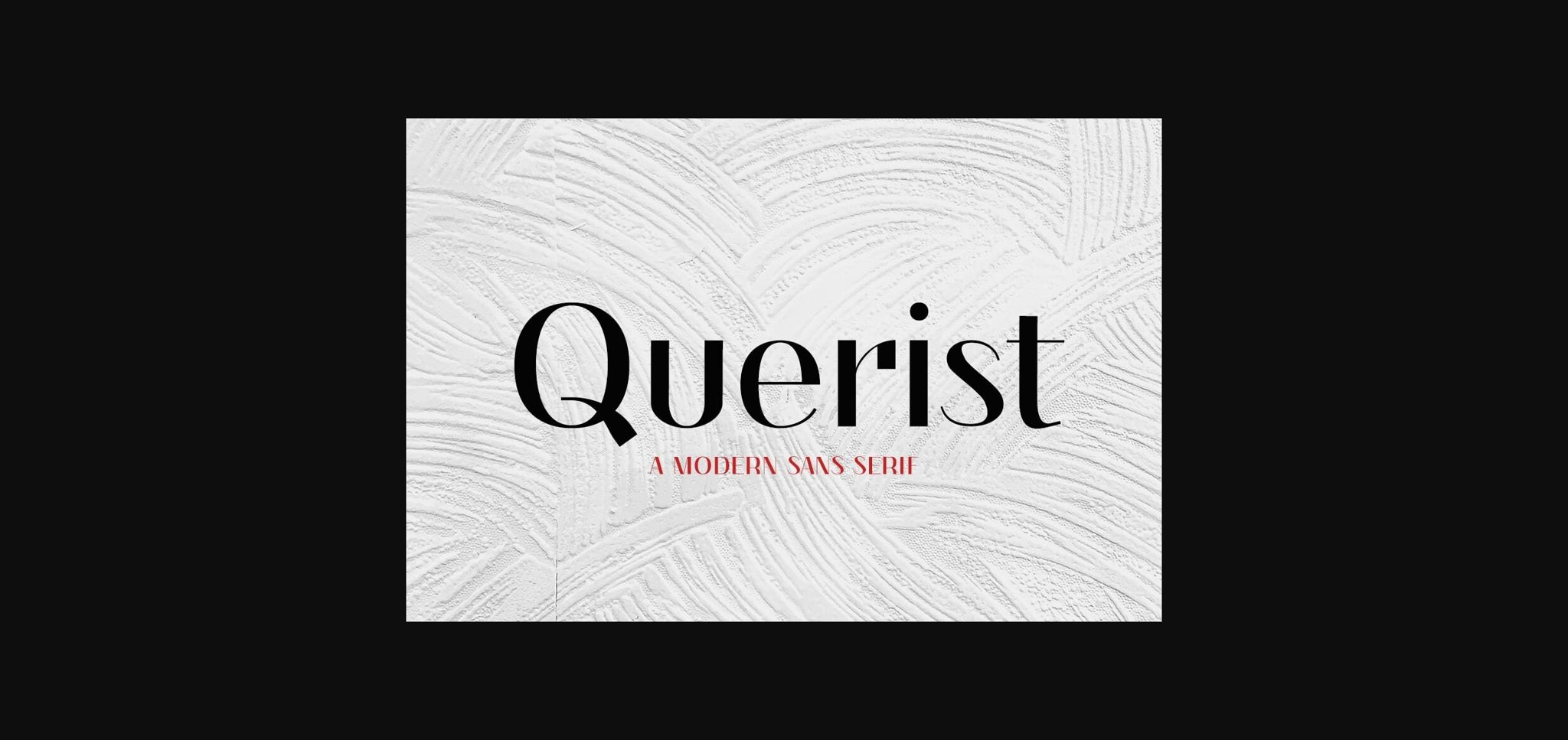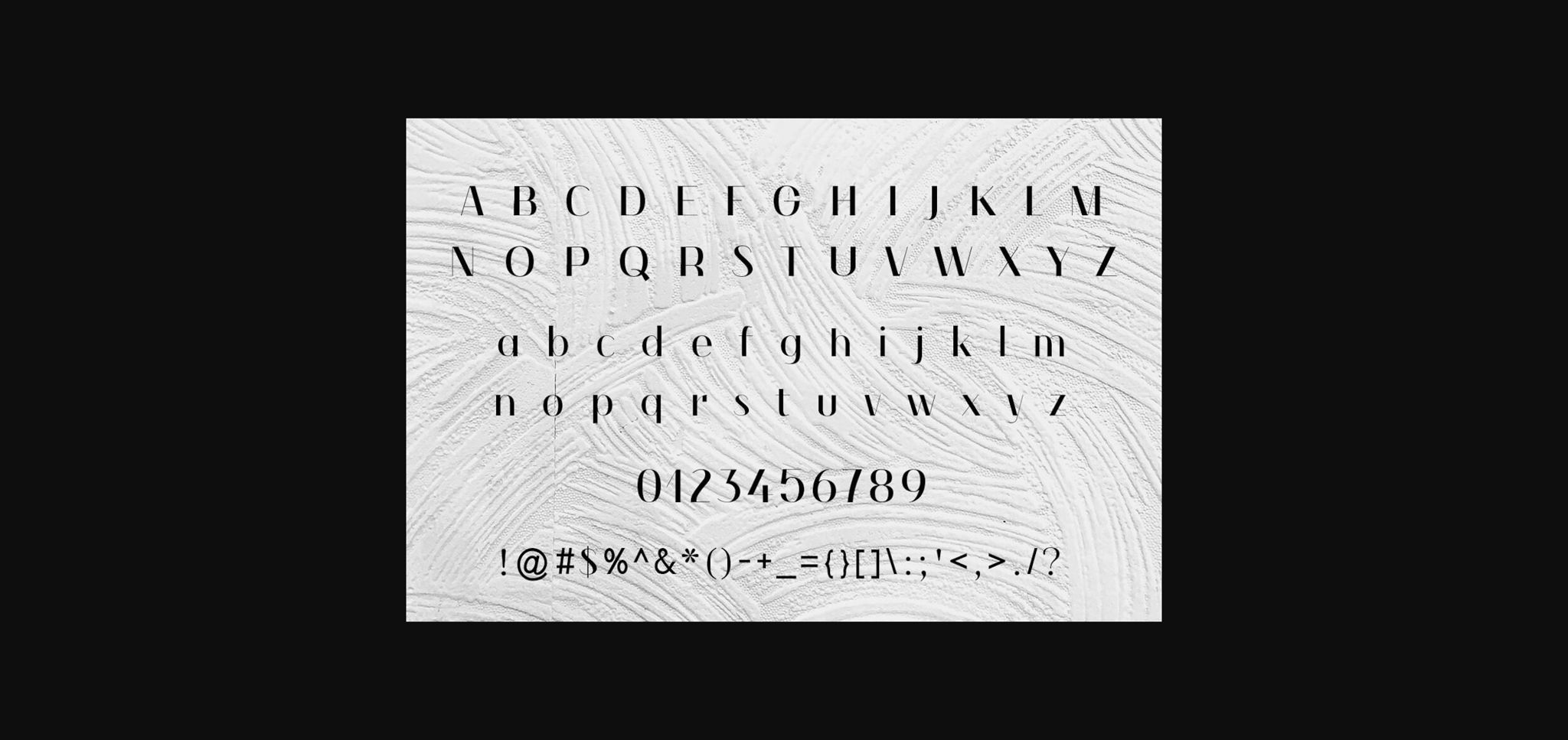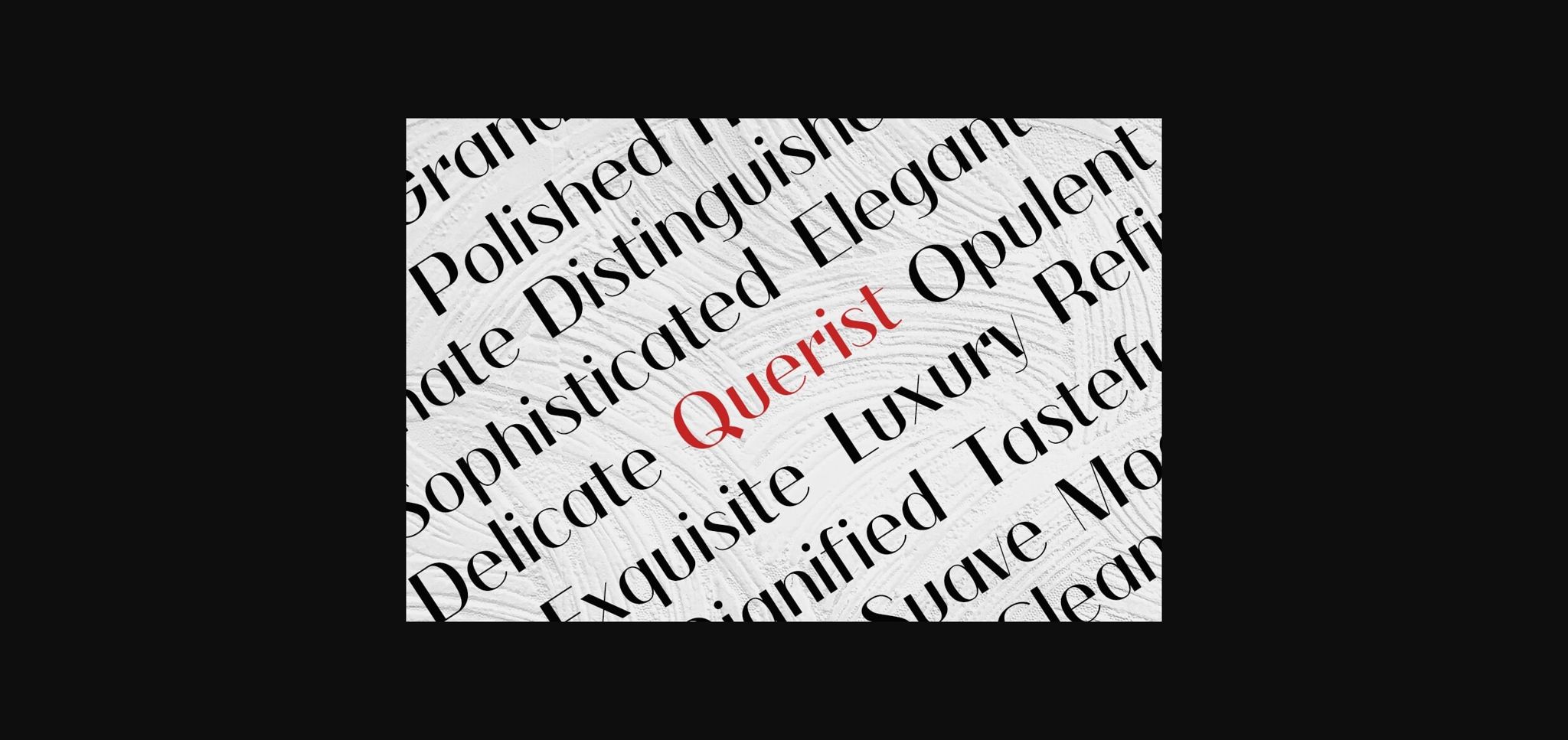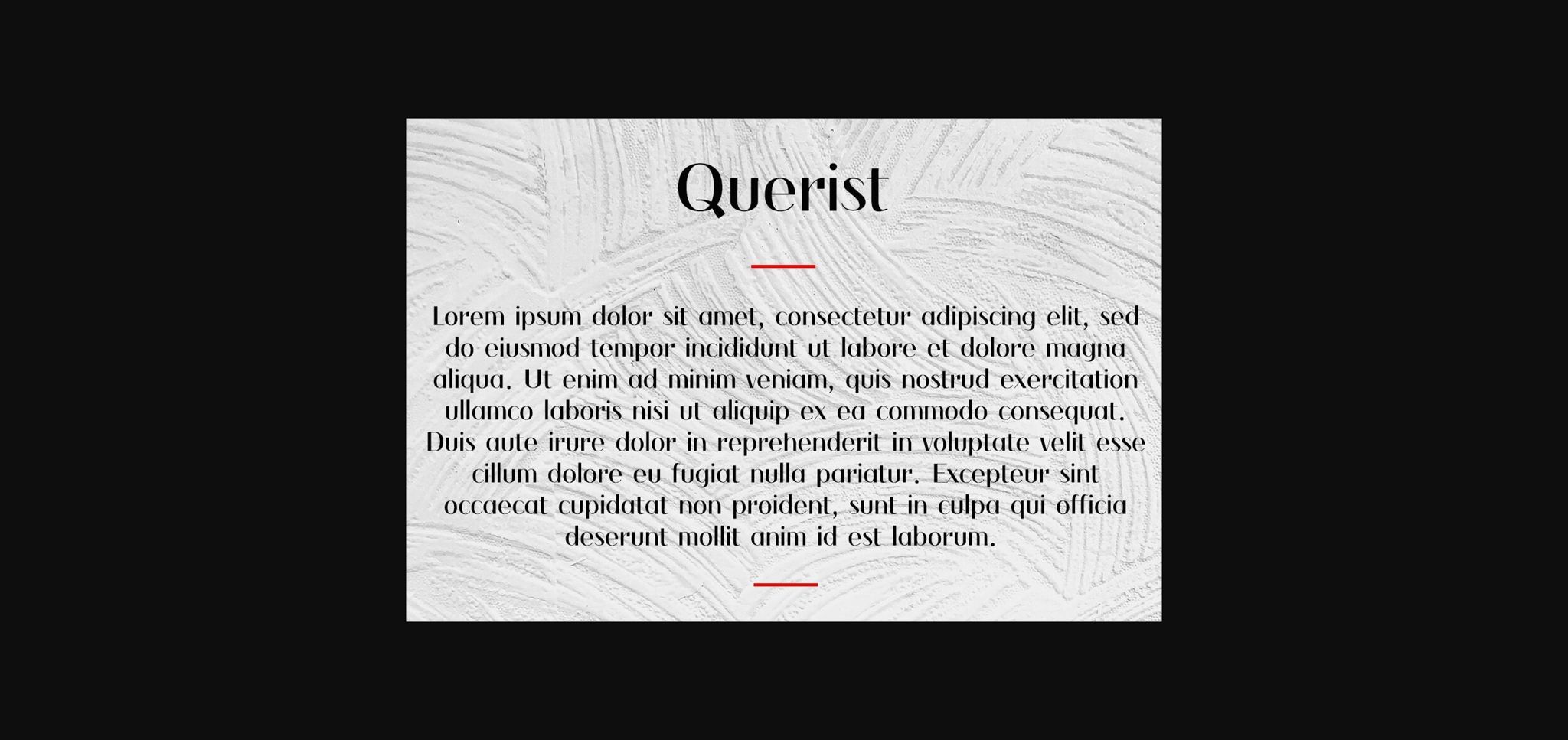
Querist Font
About Querist Font
Querist is a unique modern sans serif font that features a fluctuating line weight and many unique characters. This font is perfect for creating modern elegant branding & logos and works well when paired with monoline script fonts.